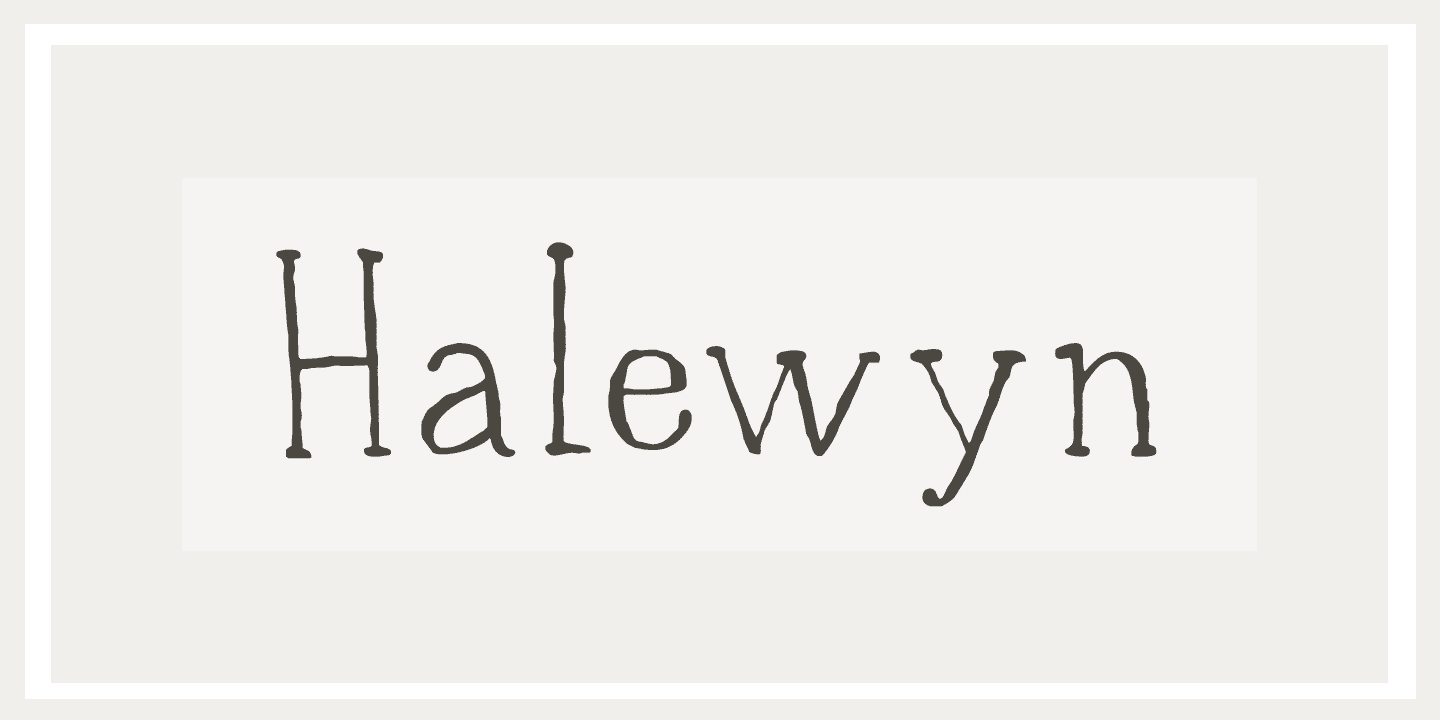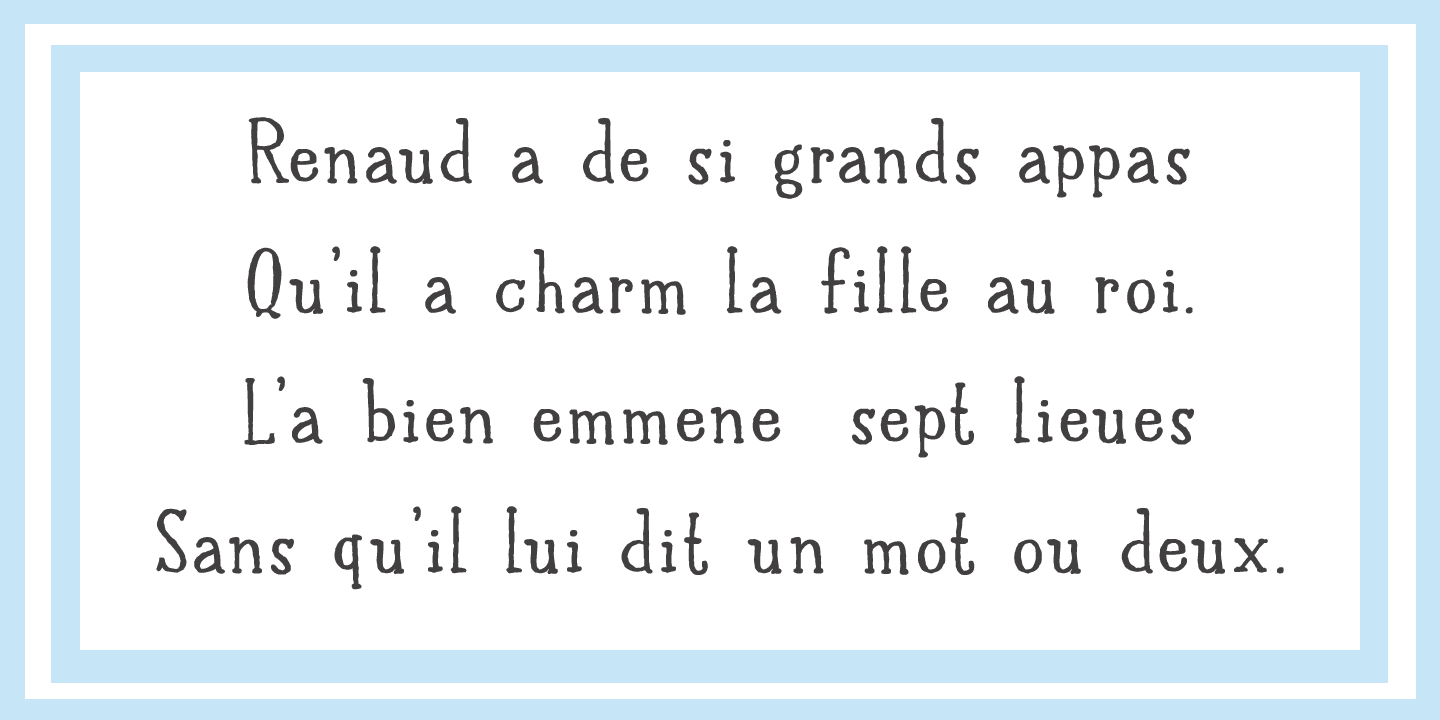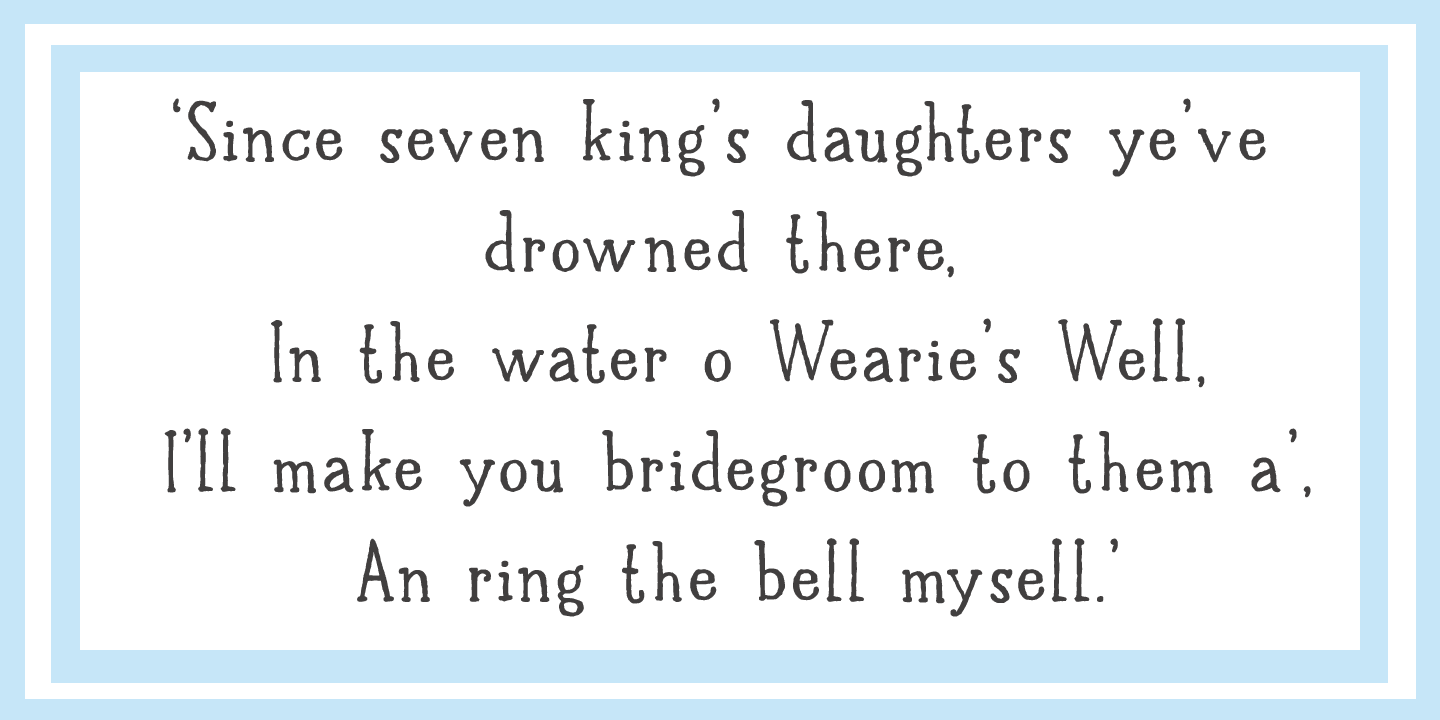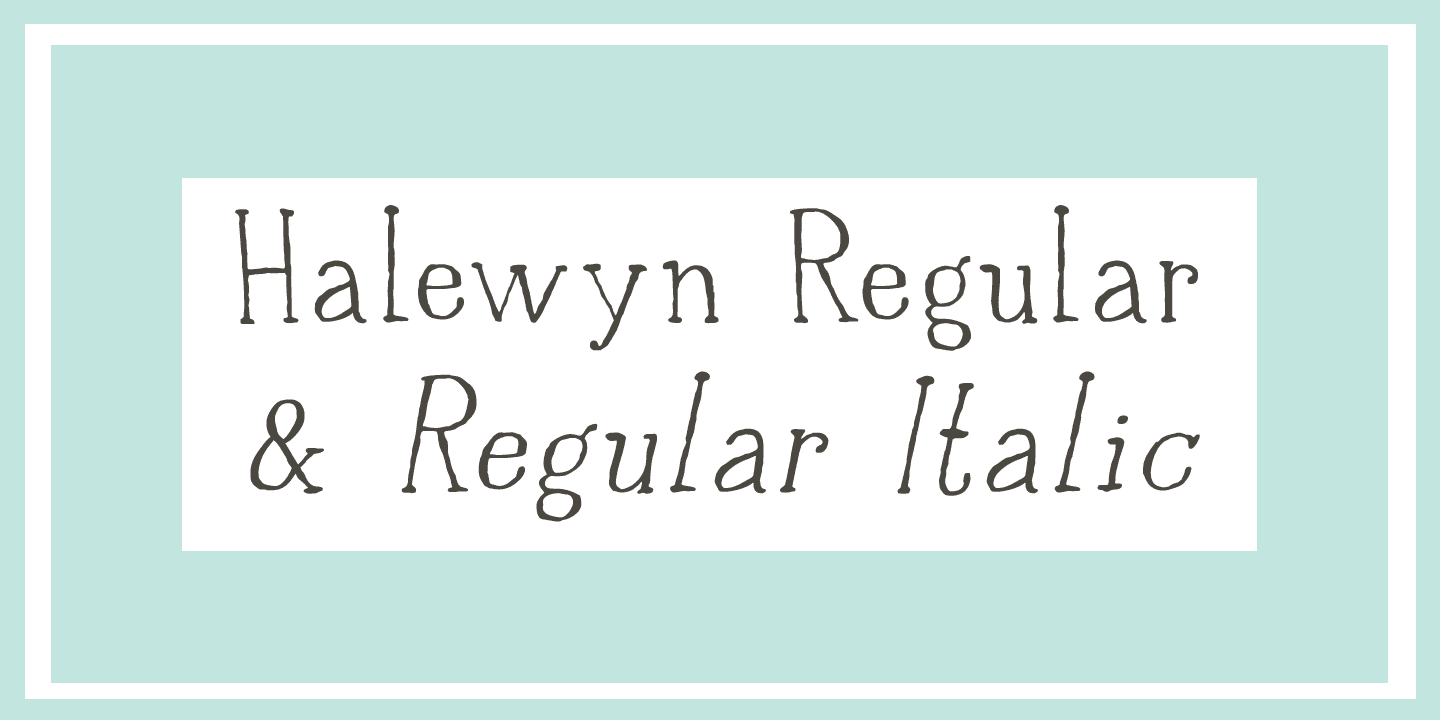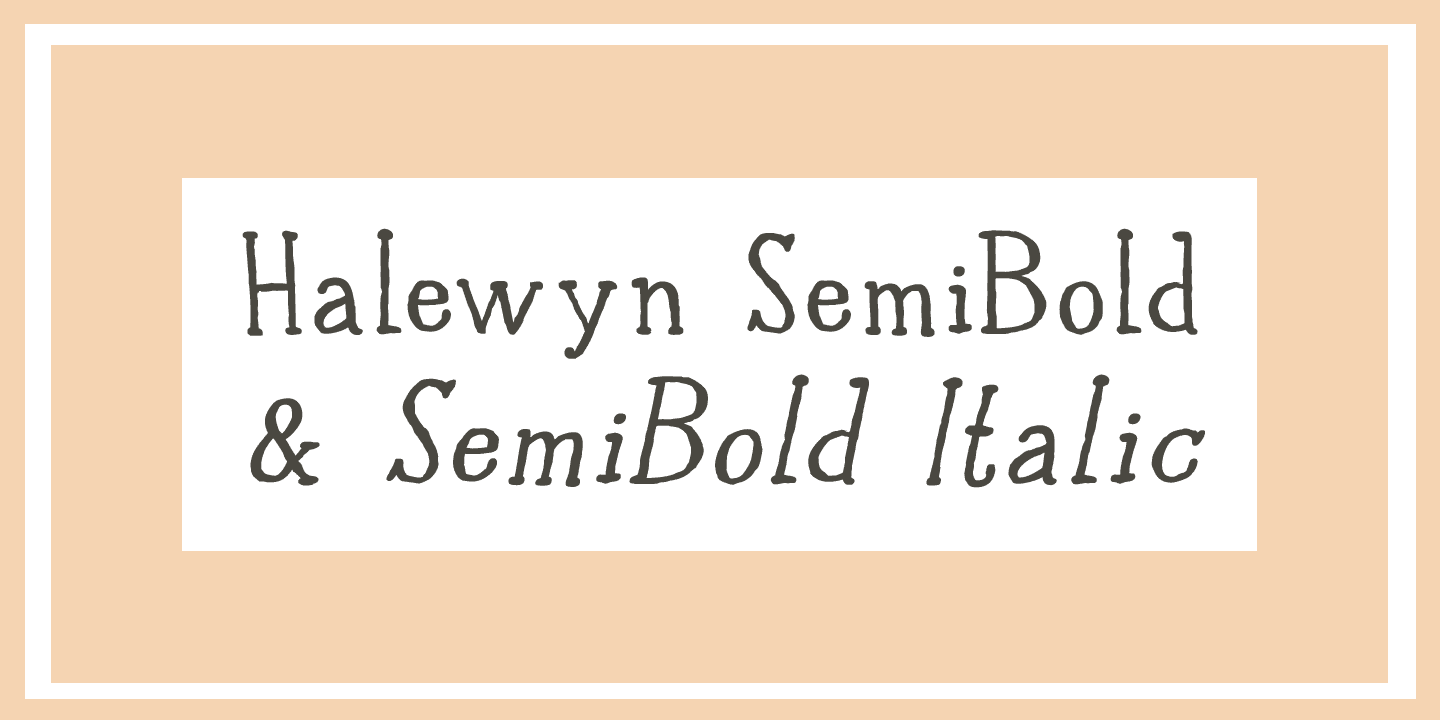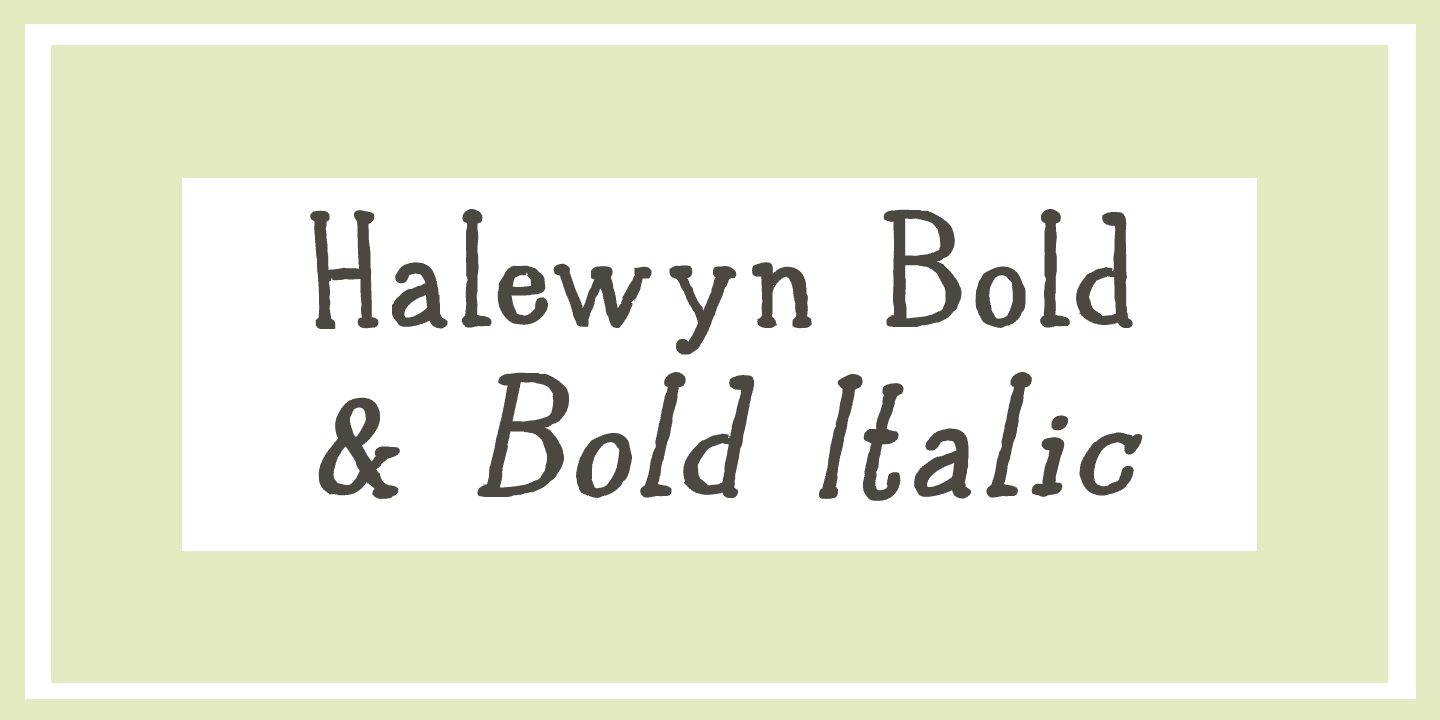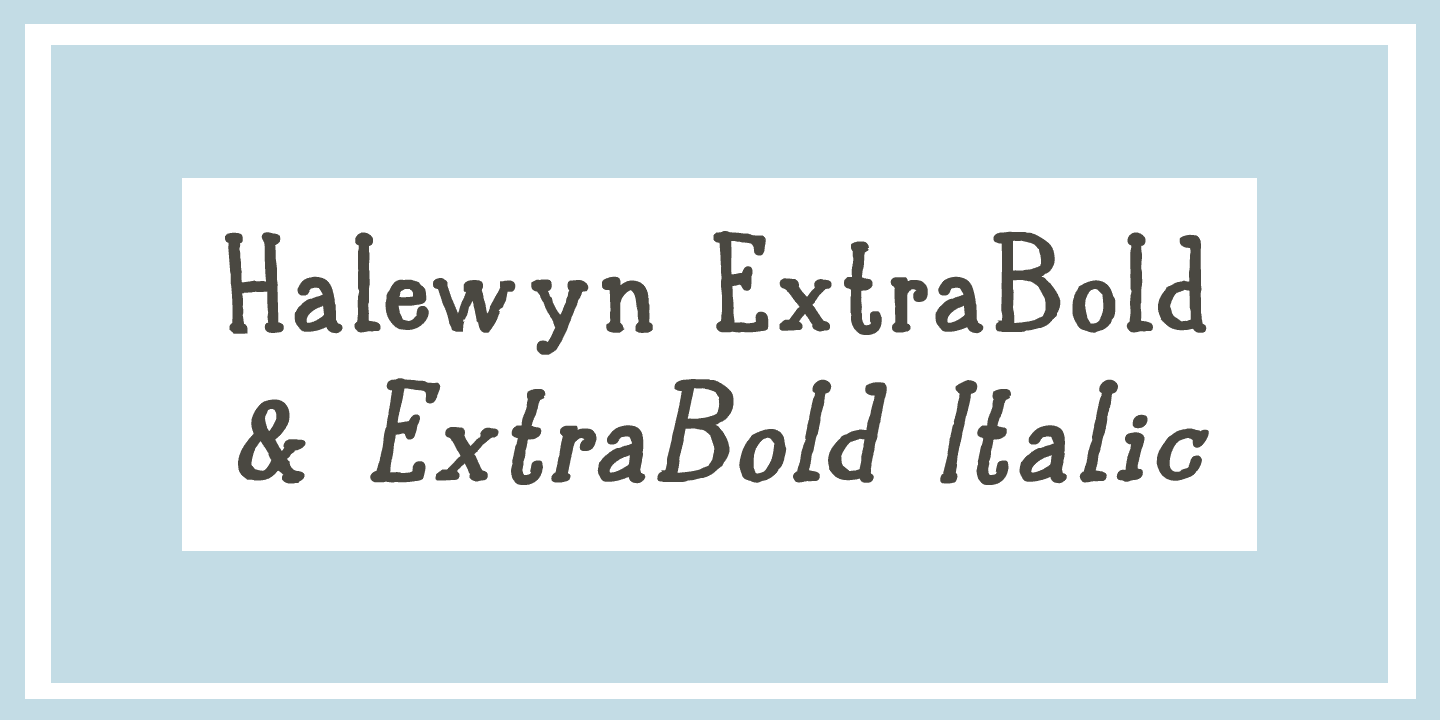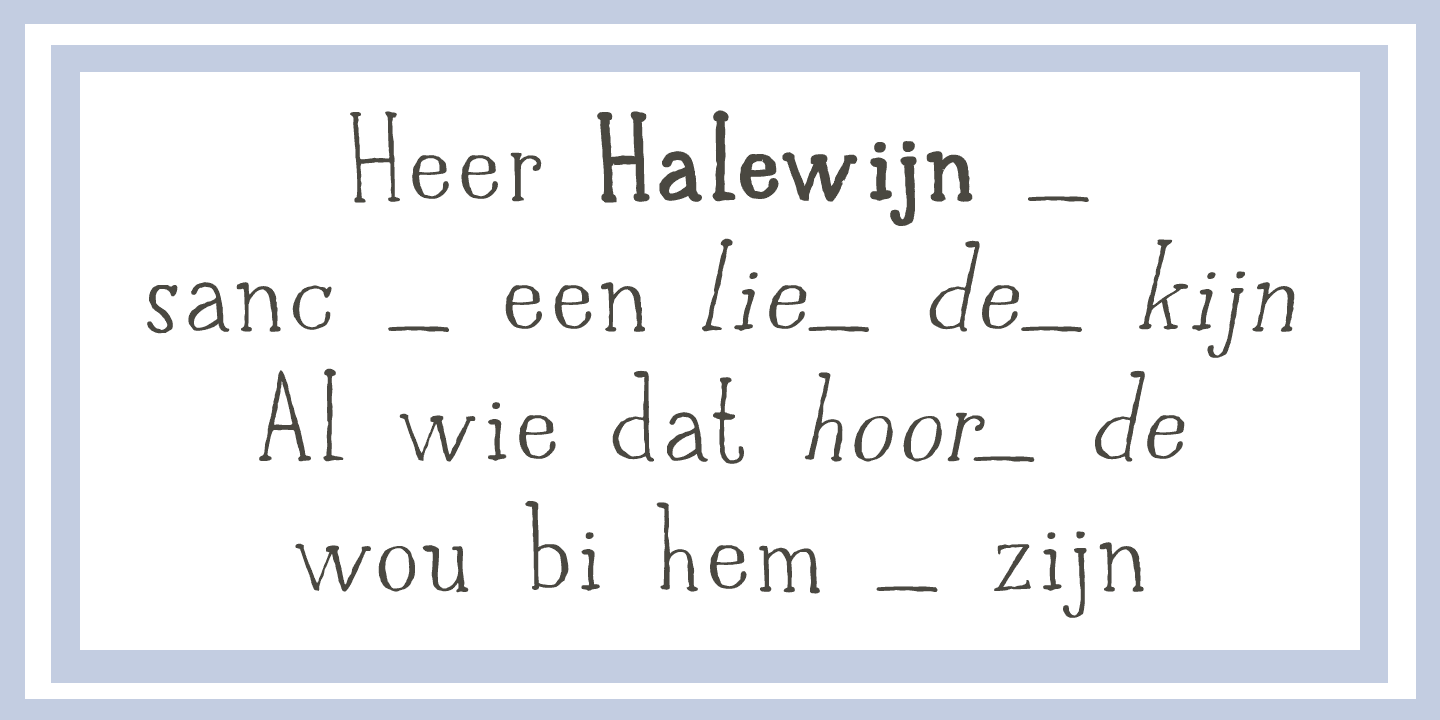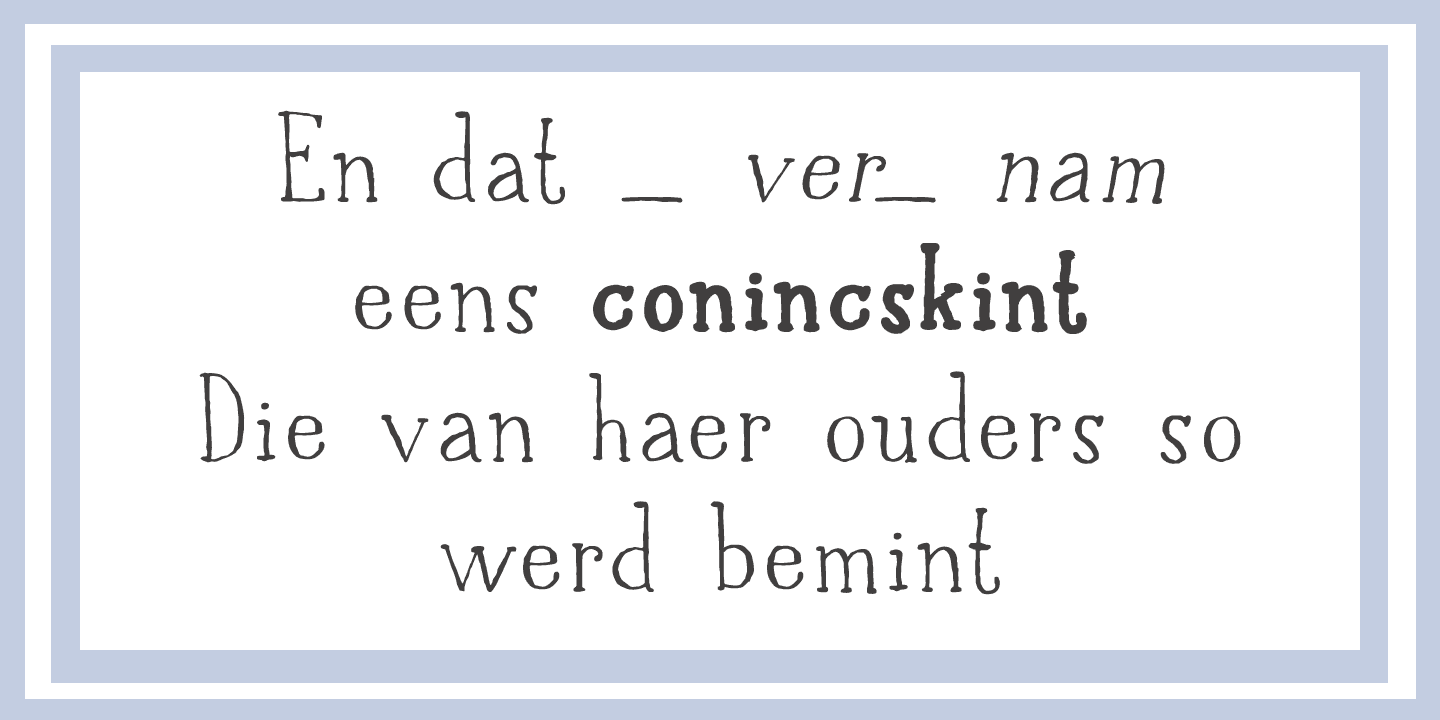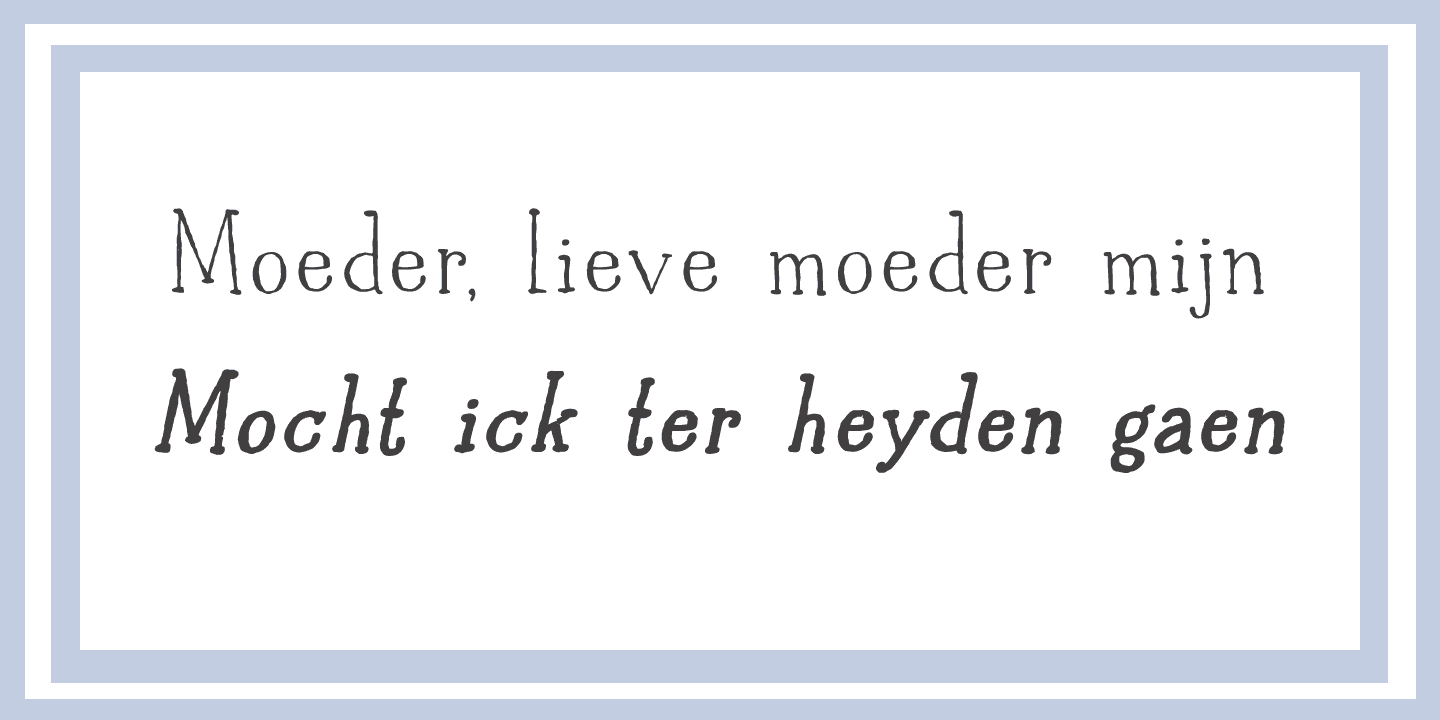
Halewyn Family (8 fonts)
Halewyn is a handmade font, which was loosely based on my Languedoc font and Garamond. Use it for product packaging, books and posters. Comes in 4 weights (with italics) and a ballad full of diacritics.